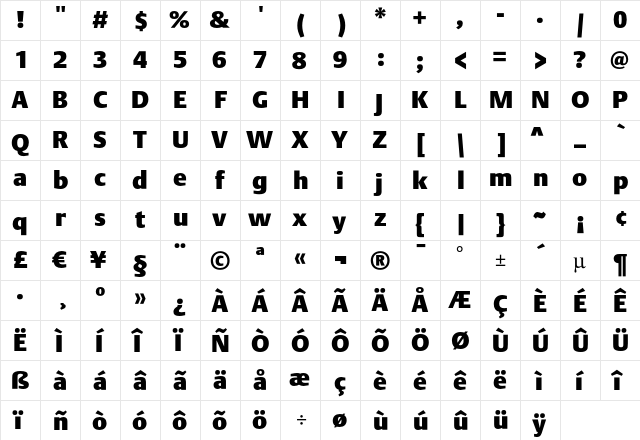
DTLArgoT Heavy
Design Context for DTLArgoT Typeface
DTLArgoT is a composed and adaptable typeface that performs quietly and consistently across a wide range of design contexts.